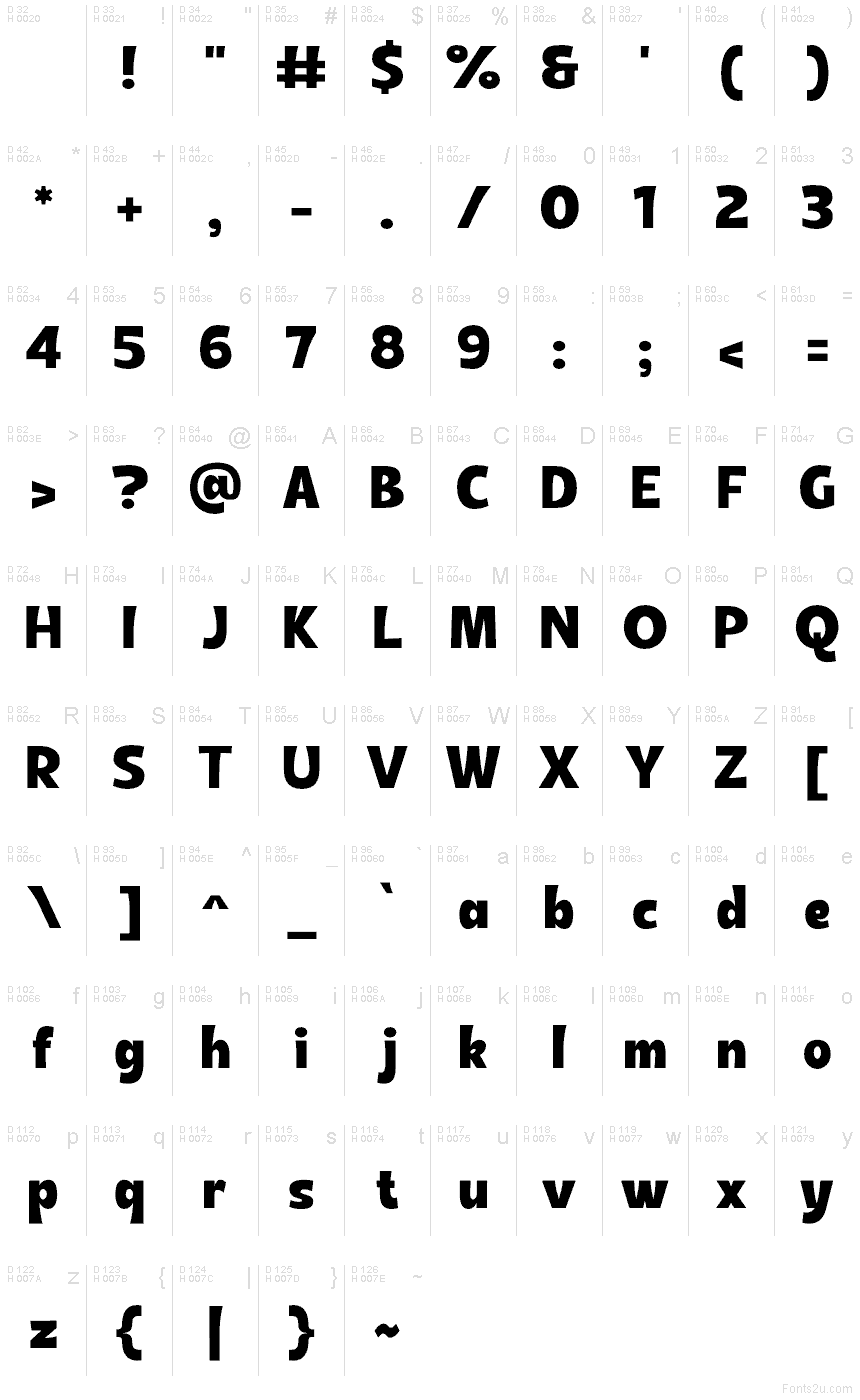
\nHaldenweg font by Graphicfresh stands out through bold geometric forms and exceptionally high impact on the viewer. It has a modern aesthetic that is paired with an approachable tone composed of rounded uppercase letters and matching numerals. These characteristics make this bold display font versatile for unlimited personal and commercial projects.
Use Haldenweg for logo designs, packaging, cards and invitations, book covers, magazines, posters, website designs, applications as well as T-shirt branding to portray your statement loud and clear.